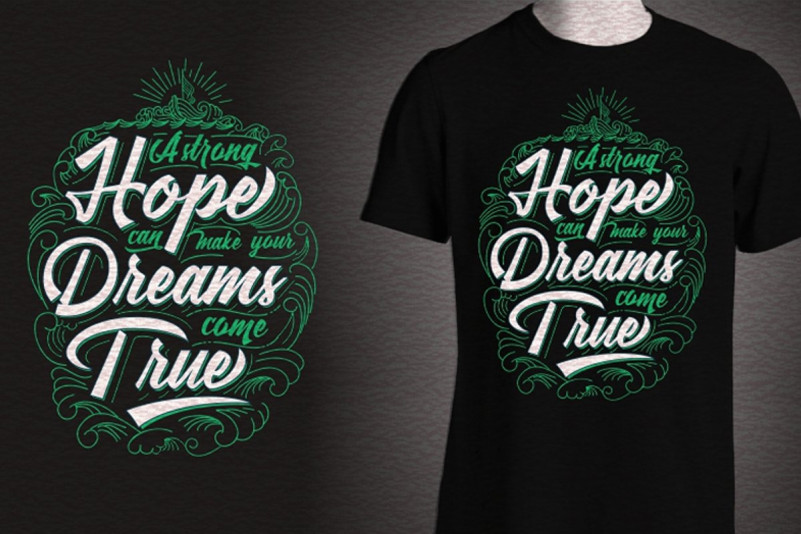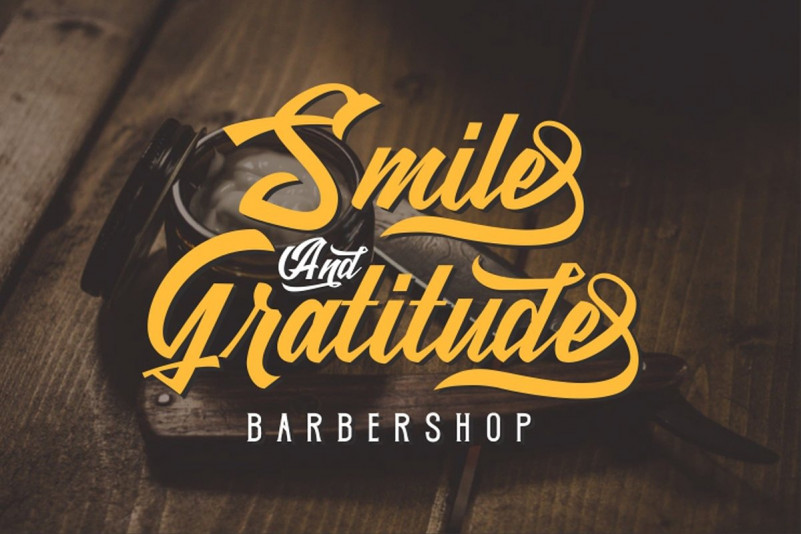
Maretha Script Font
Hello, this time we want to introduce a new product. Maretha is a classy handwritten script, it has beautiful beginning and ending swashes, this font is perfect for branding design, packaging, logo design, watermark, fashion design, wedding invites, and more.